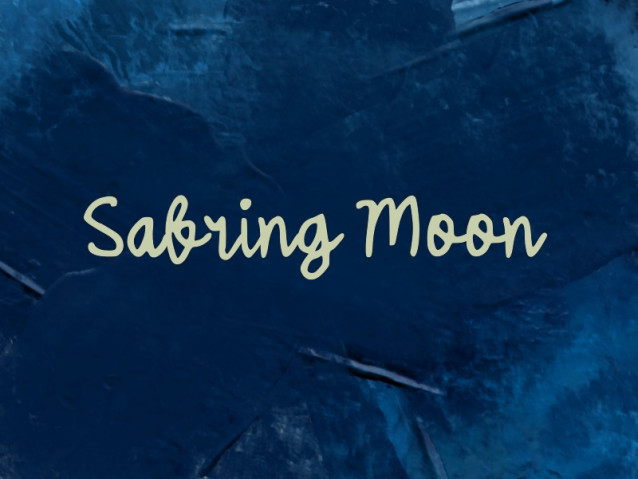
Sabring Moon Font
Sabring Moon Font is a simple and modern Script font suitable for quotes, logos, headings, titles, and many more. Use it on any of your creative projects, and your designs will become outstanding!